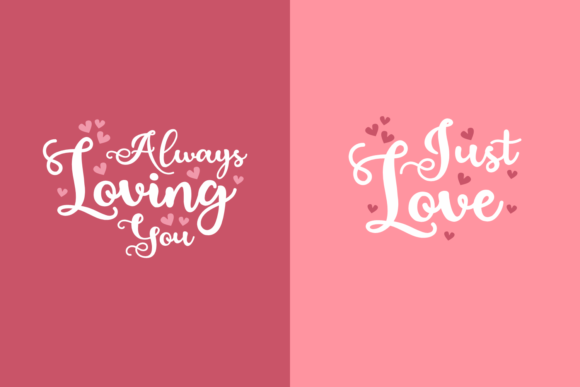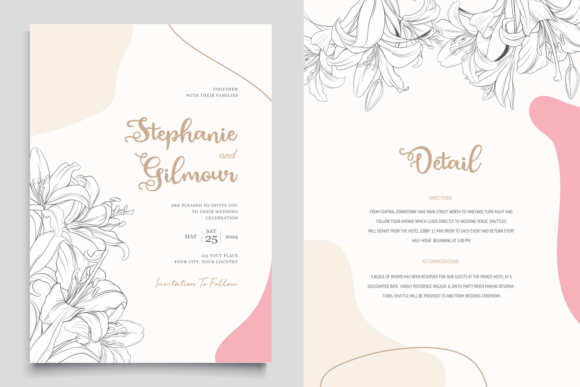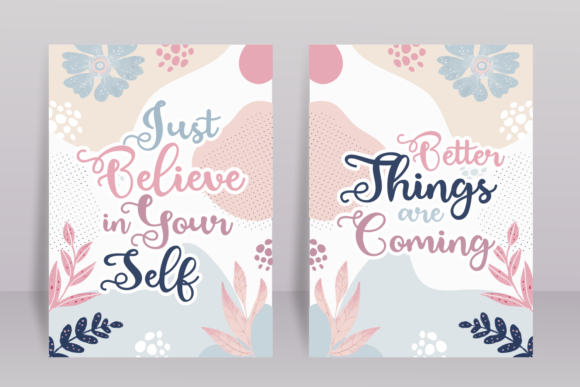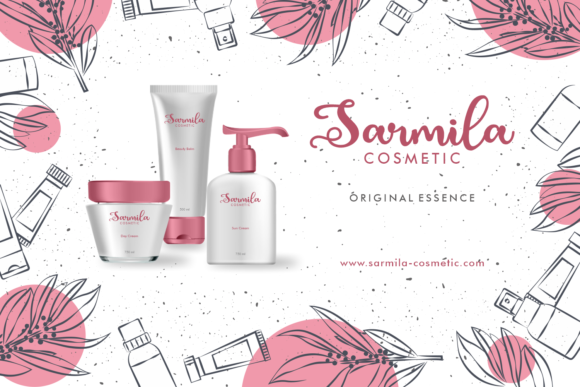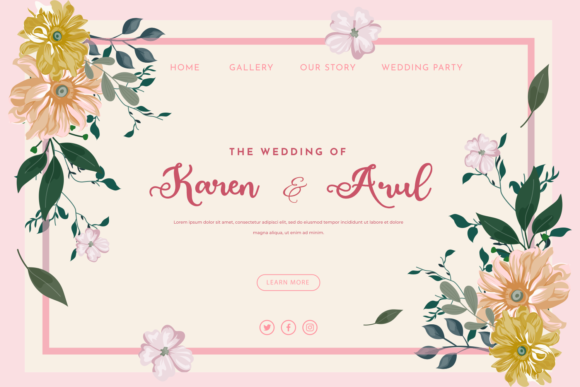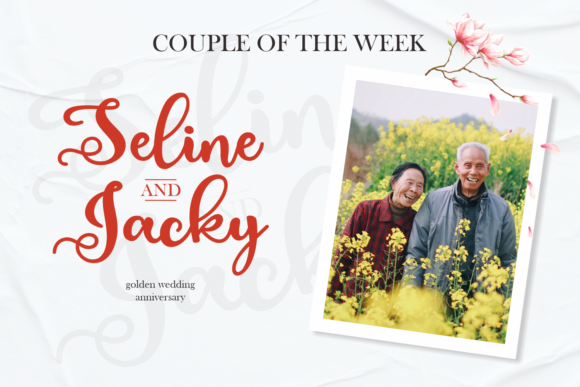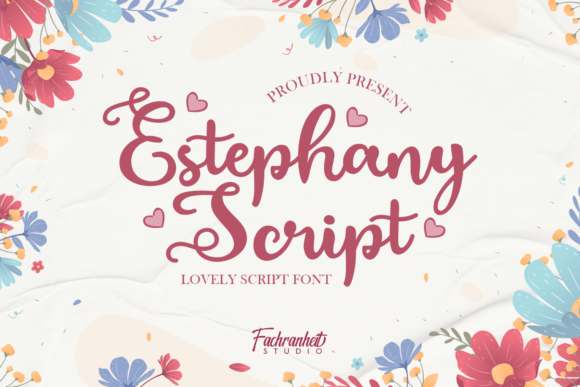
Introducing Estephany Script Font: Elevate Your Designs with Elegance
Are you a designer or crafter looking for a font that can add a touch of sophistication and elegance to your creations? Look no further than Estephany Script Font. This stunning script font is meticulously crafted with intricate details, making it a perfect addition to your font library. In this article, we’ll explore the features and benefits of Estephany Script Font and how it can enhance your designs.
What is Estephany Script Font?
Estephany Script Font is a beautifully designed script font that exudes elegance and refinement. Its neat and highly detailed craftsmanship makes it suitable for a wide range of design projects, from wedding invitations and branding materials to digital content and craft projects. With its flowing lines and cursive connections, Estephany Script Font adds a touch of sophistication to any design.
Key Features of Estephany Script Font
• Neatly Crafted: Estephany Script Font is designed with precision and attention to detail, ensuring that every letter and stroke is perfectly crafted.
• Highly Detailed: The font features intricate details that give it a luxurious and high-end feel, making it perfect for designs that require a touch of elegance.
• Versatile: Estephany Script Font can be used for a wide range of design projects, from print materials to digital content.
• Elegant: The font’s flowing lines and cursive connections give it an elegant and refined feel that’s perfect for designs that require a touch of sophistication.
Benefits of Using Estephany Script Font
So, why should you choose Estephany Script Font for your designs? Here are just a few benefits of using this stunning script font:
• Adds Elegance: Estephany Script Font adds a touch of sophistication and elegance to any design, making it perfect for designs that require a high-end feel.
• Enhances Readability: The font’s clear and precise craftsmanship ensures that your text is easy to read, even in smaller sizes.
• Versatile: Estephany Script Font can be used for a wide range of design projects, making it a great addition to your font library.
• Unique: The font’s unique design ensures that your designs stand out from the crowd and grab attention.
How to Use Estephany Script Font
Using Estephany Script Font is easy. Here are a few tips to get you started:
• Pair it with Other Fonts: Pair Estephany Script Font with other fonts to create a unique and visually appealing design.
• Use it for Headings: Use Estephany Script Font for headings and titles to add a touch of elegance and sophistication.
• Experiment with Colors: Experiment with different colors and textures to add depth and interest to your design.
Font Name Estephany Script Font
Author fachranheit